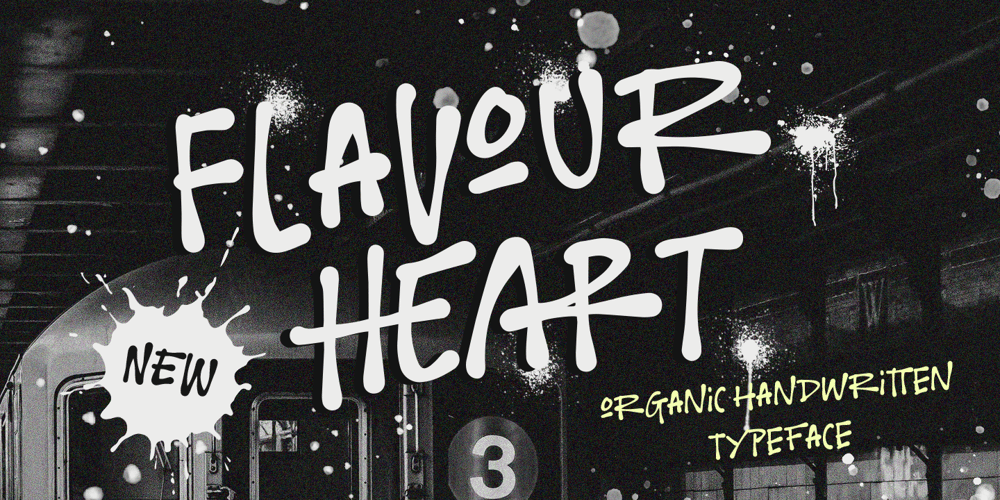
Flavour Heart Font Family was designed by Hendry Juanda and published by Letterhend. Flavour Heart contains 1 styles and family package options. Flavour Heart is a organic handwritten typeface, which is purposely made for headline, display or logotype, and signature which need a standout appearing. This font is also suitable to be applied especially in logo, and the other various formal forms such as invitations, labels, logos, magazines, books, greeting / wedding cards, packaging, fashion, make up, stationery, novels, labels or any type of advertising purpose.Features : Uppercase & lowercase Numbers and punctuation Alternates & Ligatures Multilingual PUA encoded We highly recommend using a program that supports OpenType features and Glyphs panels like many of Adobe apps and Corel Draw, so you can see and access all Glyph variations.